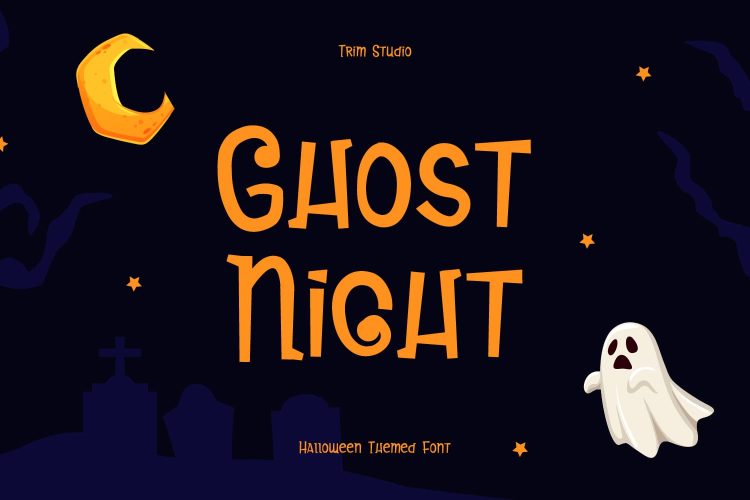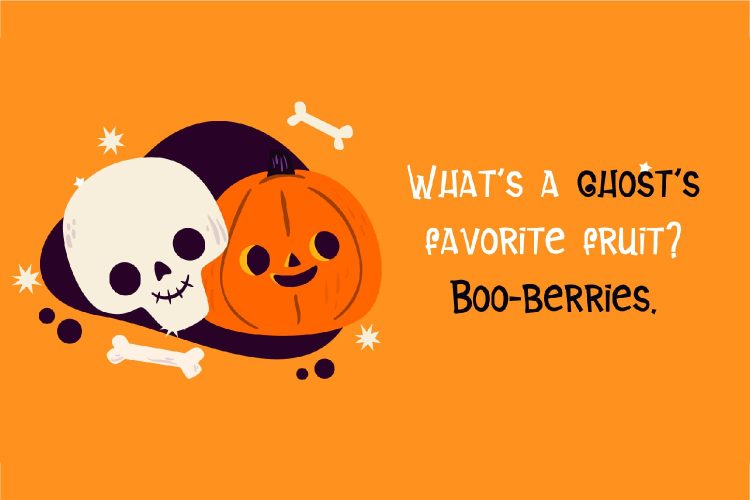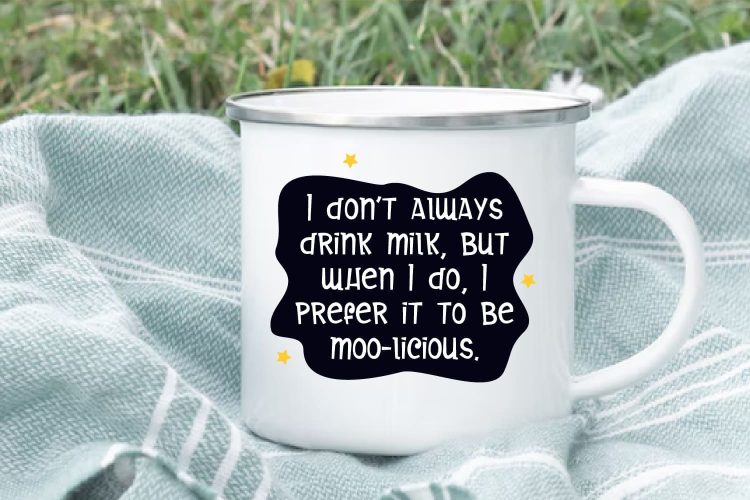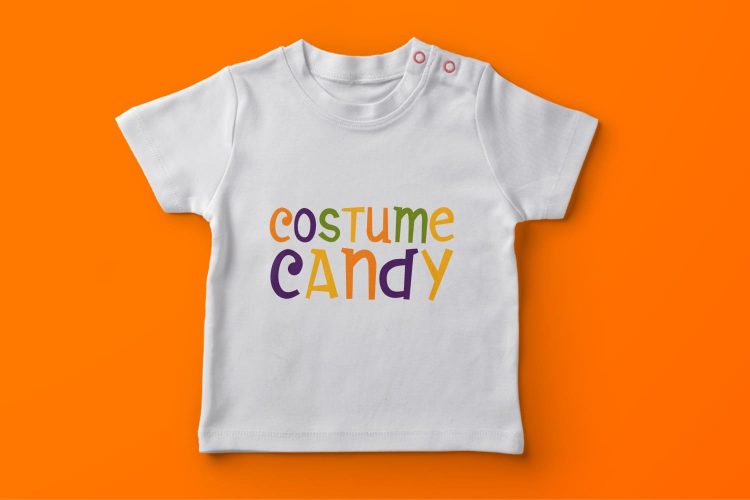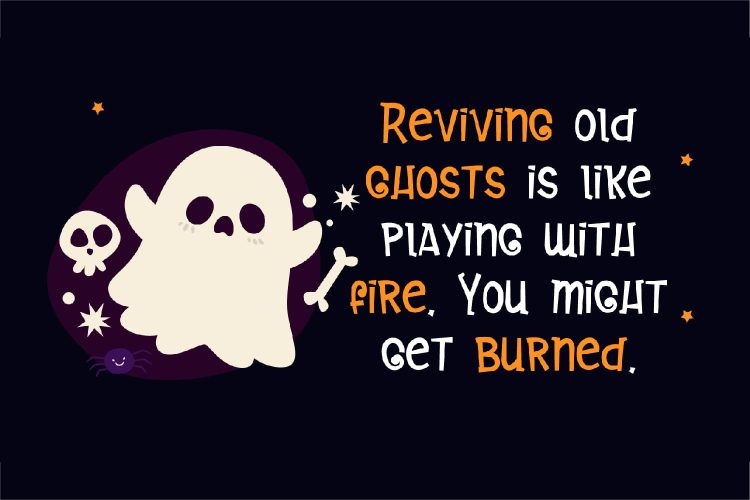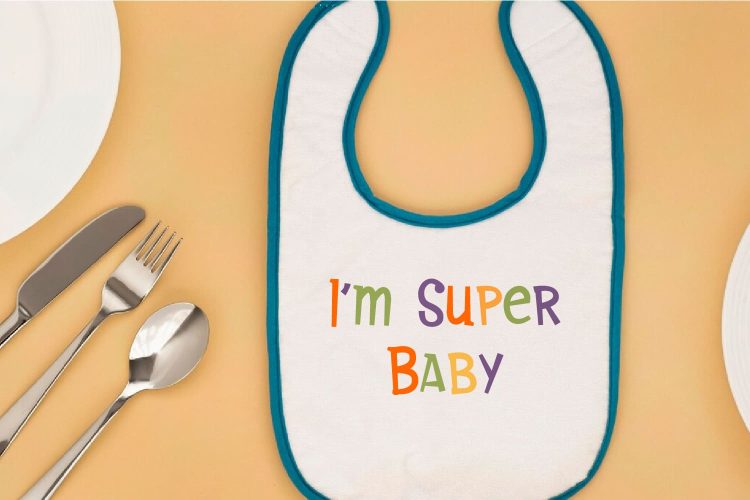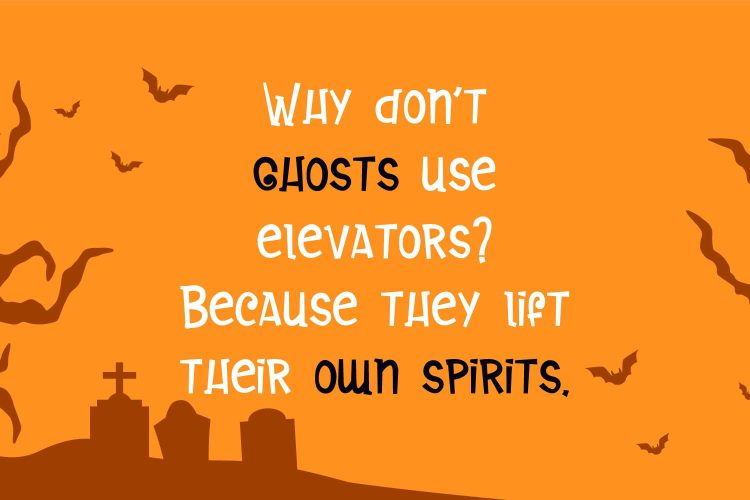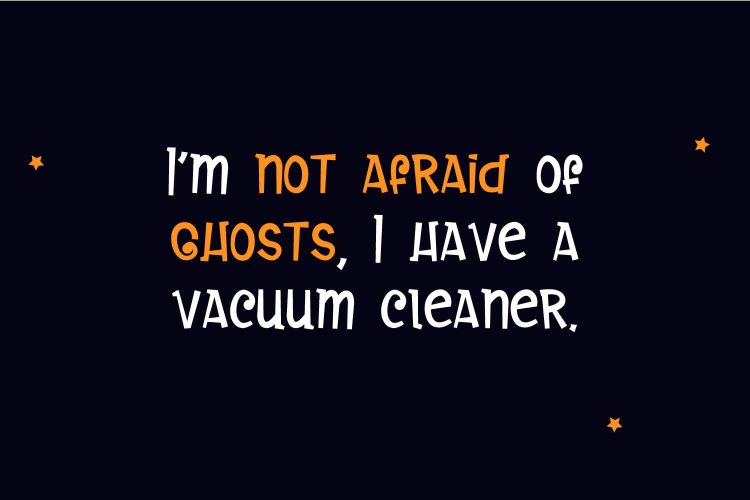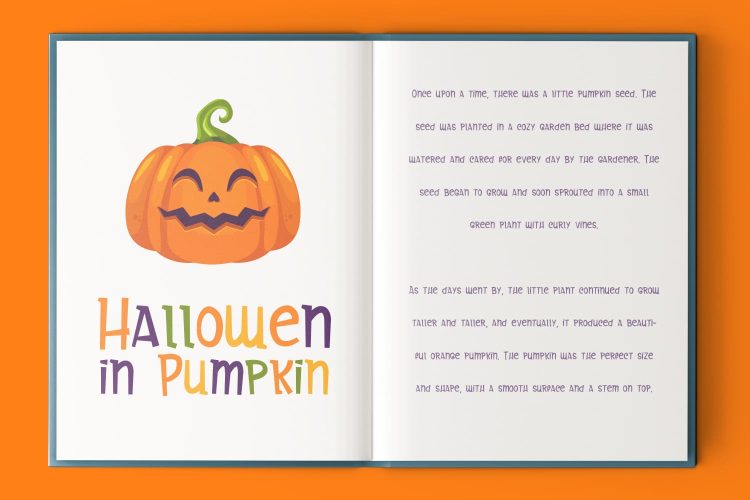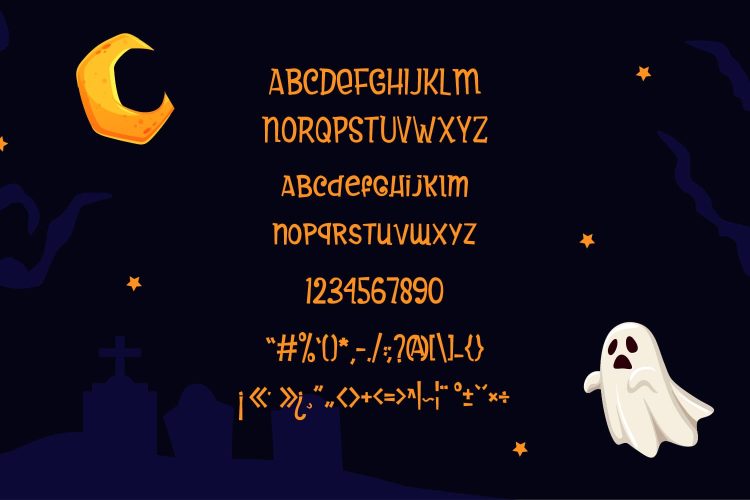
Ghost Night is a playful font with a spooky twist. Its simple line design features a tail and varying thickness at the end, evoking a ghostly appearance. Perfect for Halloween projects, Ghost Night adds a fun and scary vibe in a simple and captivating way.Trimstd is amazing
Ghost Night – Halloween Theme Font